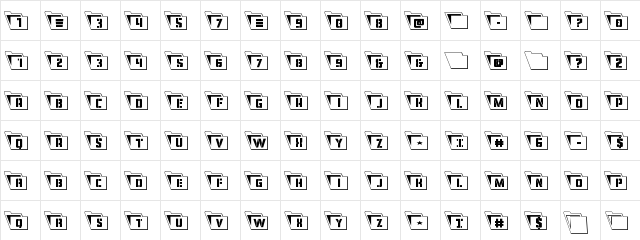
Design Context for Eyes Only Outline Condensed Leftalic Typeface
Eyes Only Outline Condensed Leftalic is built around its visual character rather than neutral utility — its distinctive forms are designed to make an impression at display sizes. The dynamic lean of this cut emphasises speed and emphasis in any layout.
Font Pairing: Pair with a clean neutral sans-serif for body copy to let Eyes Only Outline Condensed Leftalic's character lead without overwhelming the composition.
Pro Tip: Treat Eyes Only Outline Condensed Leftalic as the centrepiece of your typographic hierarchy. One strong heading set in a decorative face can carry an entire layout.